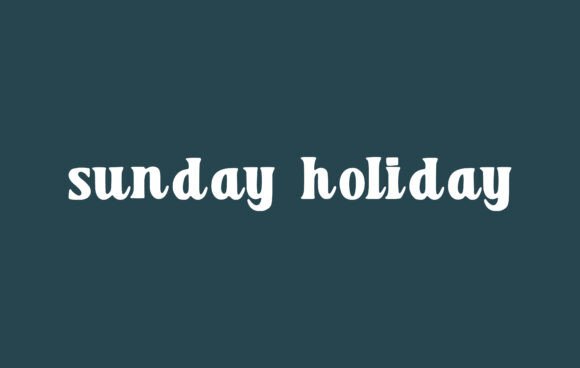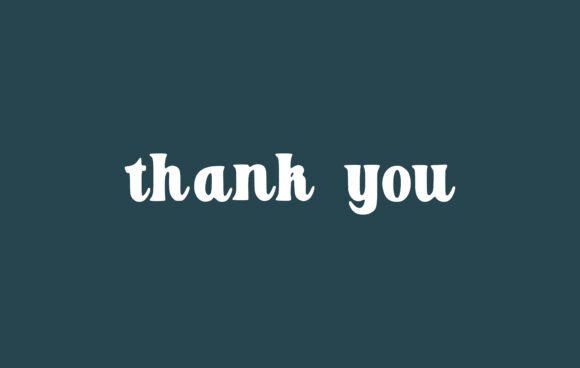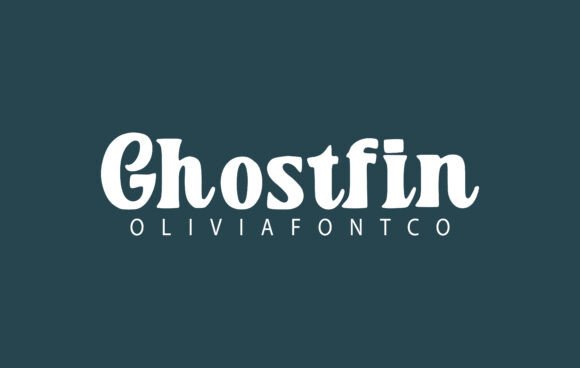
Introducing Ghostfin Font: The Ultimate Handwritten Font for Creative Expression
Are you a designer, crafty enthusiast, or creative professional looking for a unique and captivating font to elevate your projects? Look no further than Ghostfin Font, an authentic handwritten font with a romantic touch that’s sure to become your new favorite. In this article, we’ll dive into the world of Ghostfin Font, exploring its features, benefits, and uses, and why it’s a must-have for anyone looking to add a touch of elegance and sophistication to their designs.
The Story Behind Ghostfin Font
Ghostfin Font is a carefully crafted handwritten font, designed to evoke a sense of romance and whimsy. Its creator has poured their heart and soul into developing a font that’s not only beautiful but also highly legible and versatile. Whether you’re looking to create stunning magazine headlines, social media graphics, branding materials, wedding invitations, or cards, Ghostfin Font is the perfect choice.
What Makes Ghostfin Font So Special?
So, what sets Ghostfin Font apart from other fonts on the market? Here are just a few of its standout features:
- Authentic Handwritten Style: Ghostfin Font boasts a genuine handwritten look that’s sure to capture the hearts of your audience.
- Romantic Touch: With its delicate lines and curves, Ghostfin Font adds a touch of romance and elegance to any design.
- High Legibility: Despite its ornate appearance, Ghostfin Font is highly legible, making it perfect for use as both title and body text.
- Versatility: From magazine headlines to social media graphics, and from wedding invitations to branding materials, Ghostfin Font is the ultimate versatile font.
Uses for Ghostfin Font
Ghostfin Font is a chameleon of a font that can be used in a wide range of creative projects. Here are just a few ideas to get you started:
- Magazine Headlines: Add a touch of glamour to your magazine with Ghostfin Font’s elegant and sophisticated style.
- Social Media Graphics: Elevate your social media presence with eye-catching graphics featuring Ghostfin Font.
- Branding Materials: Create a lasting impression with Ghostfin Font’s unique and memorable style.
- Wedding Invitations: Make your wedding invitations truly special with Ghostfin Font’s romantic and whimsical touch.
- Cards and Stationery: Add a personal touch to your cards and stationery with Ghostfin Font’s beautiful handwritten style.
Why Designers and Crafters Love Ghostfin Font
Ghostfin Font has quickly become a favorite among designers and crafters, and for good reason. Here are just a few reasons why:
- Easy to Use: Ghostfin Font is incredibly easy to use, even for those with limited design experience.
- Customizable: With its range of weights and styles, Ghostfin Font can be tailored to suit any design project.
- Unique Style: Ghostfin Font’s authentic handwritten style ensures that your designs stand out from the crowd.
In conclusion, Ghostfin Font is a game-changing handwritten font that’s sure to take your creative projects to new heights. With its romantic touch, high legibility, and versatility, Ghostfin Font is the perfect choice for designers, crafters, and creative professionals looking to add a touch of elegance and sophistication to their designs. So why wait? Discover the magic of Ghostfin Font today and unlock a world of creative possibilities!